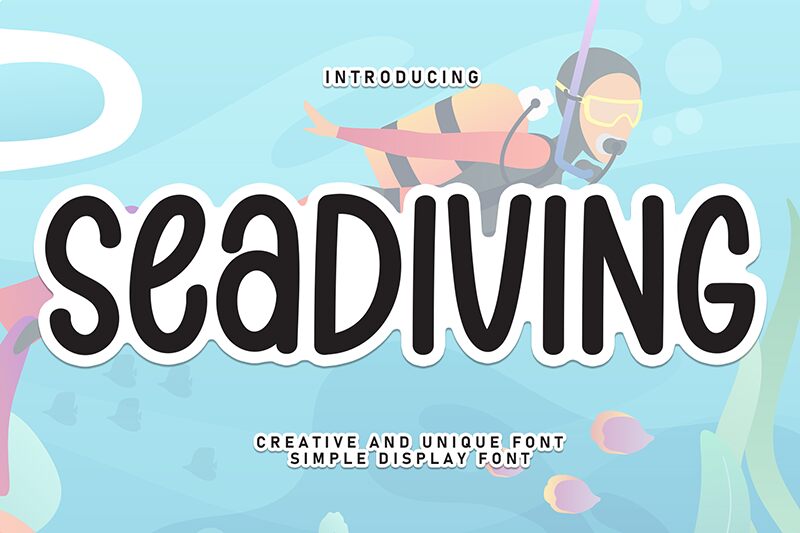
Seadiving
Seadiving font is a free handwritten font by Andi Moz. Its condensed and hand-drawn nature gives an organic aesthetic that shows effortlessly pleasing. The shapes are kept upright, but the patterns within and the lowercase’s whimsical touch add personality with a slight retro note.
The casual feel of this typeface makes it ideal for inspiration cards, planners, invitations, packaging designs, advertisements, signs/ banners as well as menu designs among others. Use it freely in its displayed condensed style or explore stretching it horizontally to get more variations from Seadiving.